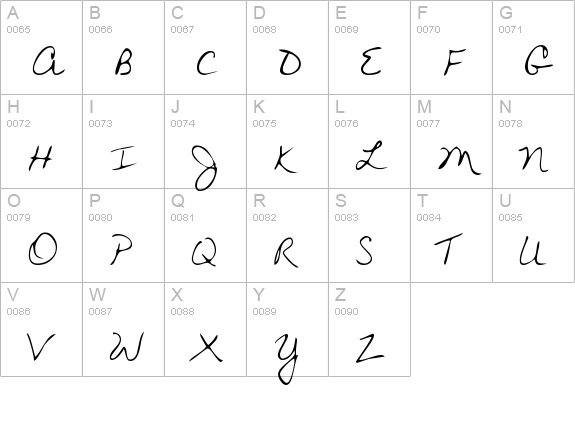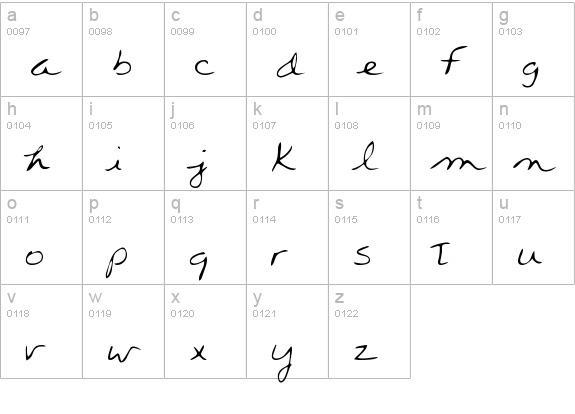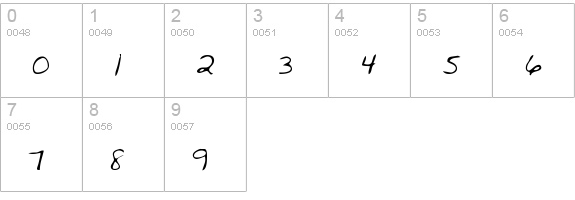
WendysHand Regular Font Details
WendysHand Regular is the standard, neutral variant in the WendysHand typeface family \xE2\x80\x94 well suited to general body text, paragraphs, and standard typographic work.
WendysHand Regular font is a playful and casual typeface that adds a touch of whimsy to any design project. With its slightly uneven strokes and charming imperfections, this font captures the essence of hand-drawn lettering. Designed with versatility in mind, WendysHand Regular is perfect for a wide range of applications, including branding, packaging, social media graphics, and more. Whether you're looking to create a fun and friendly logo or add a personal touch to your invitations, this font has got you covered. The best part? WendysHand Regular is freely available to download at FontsMarket.com. This means that you can easily access and use this font without any restrictions or limitations. Embrace your creativity and bring your designs to life with this delightful typeface. Add a touch of whimsy to your next project with WendysHand Regular font. Download it for free today at FontsMarket.com and let your imagination run wild.